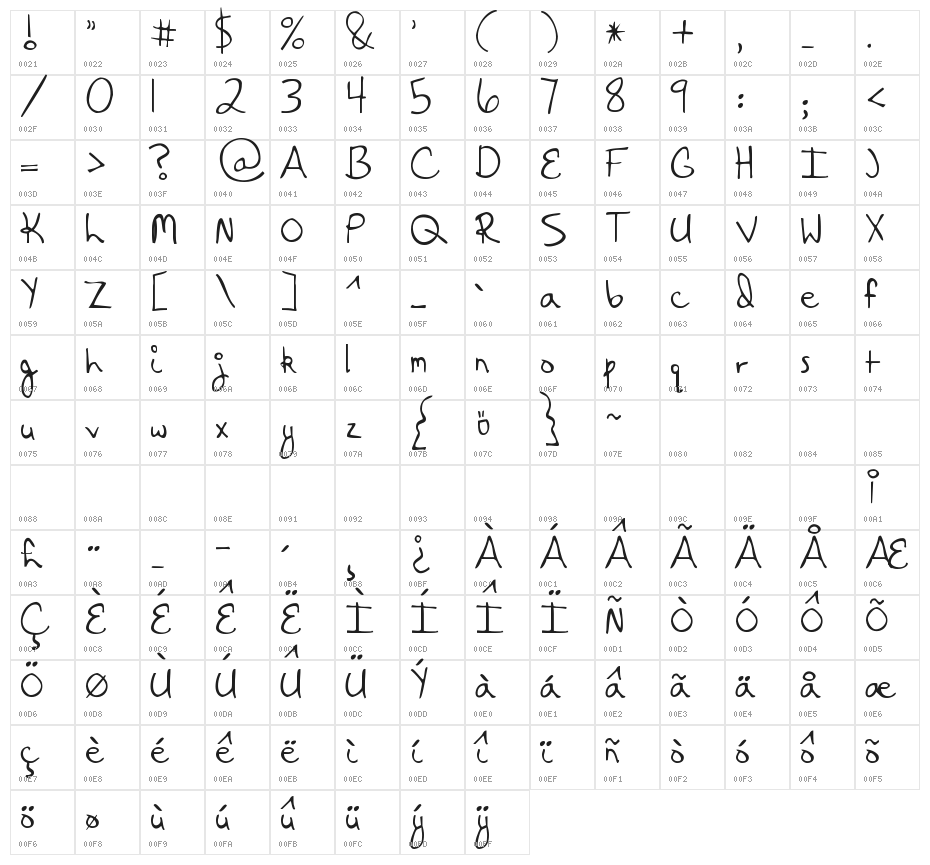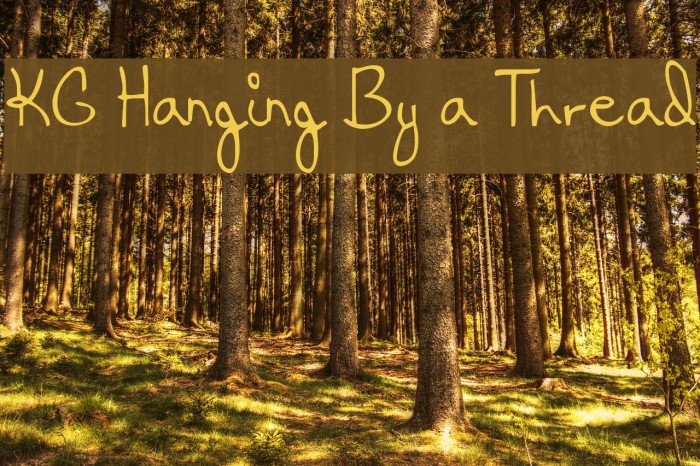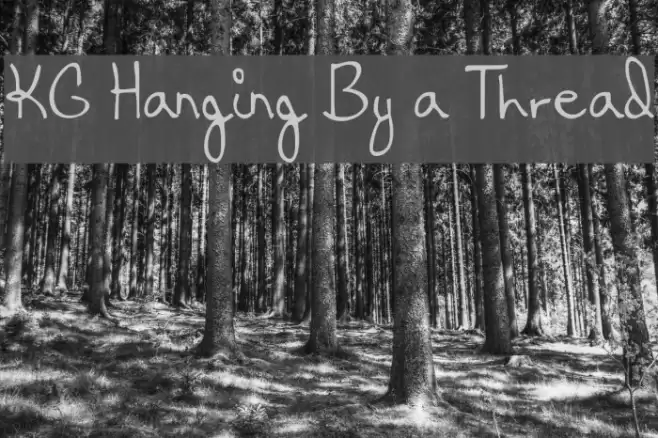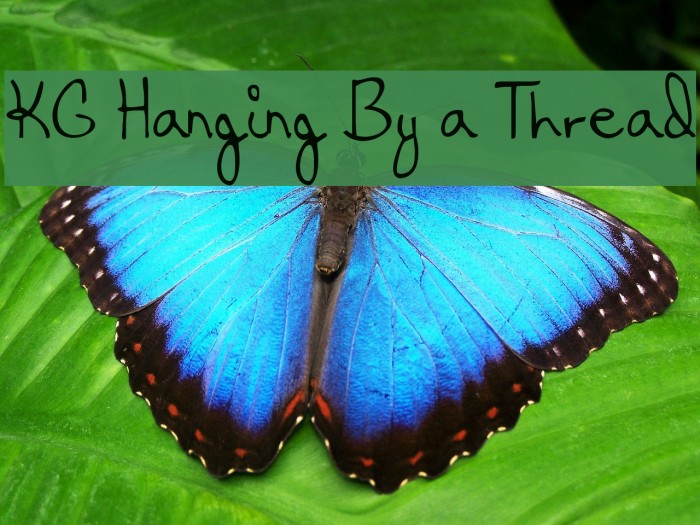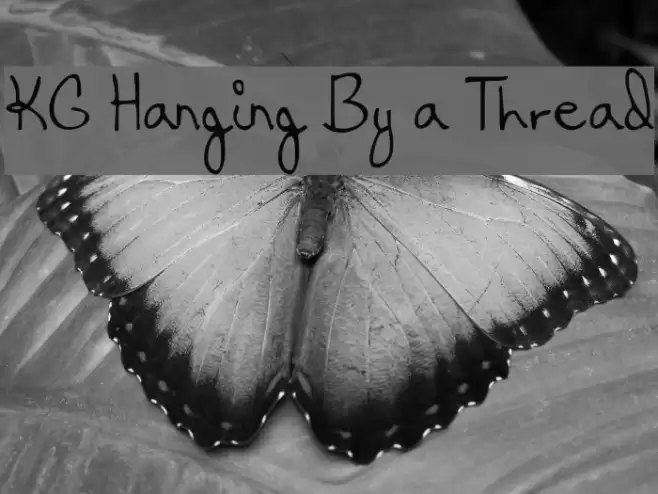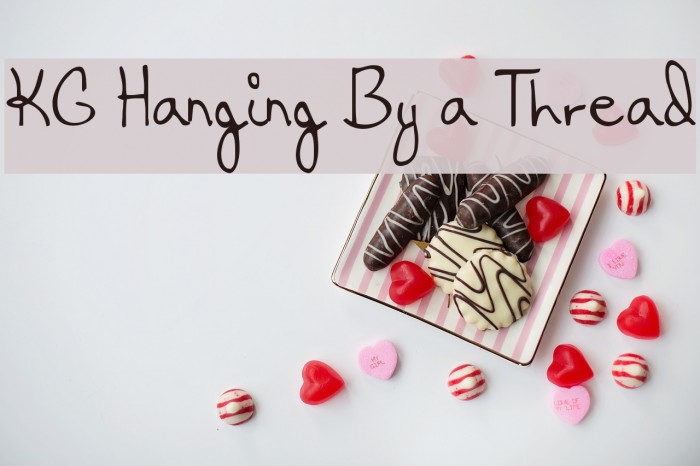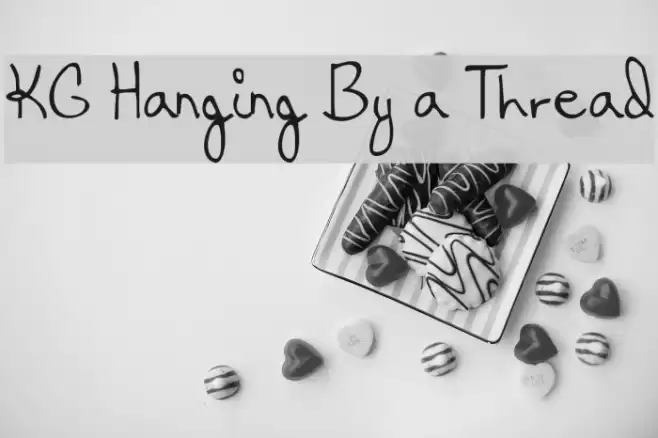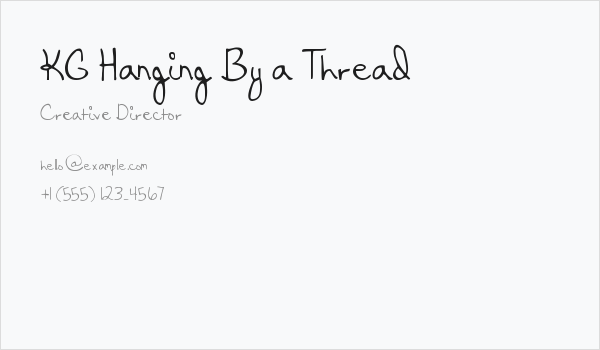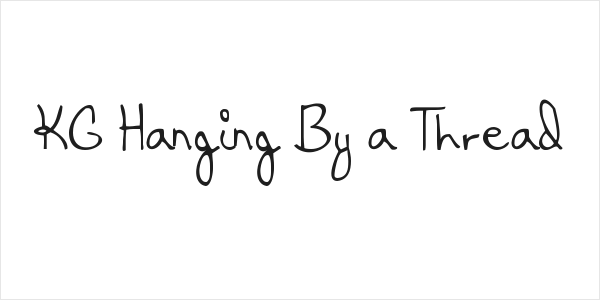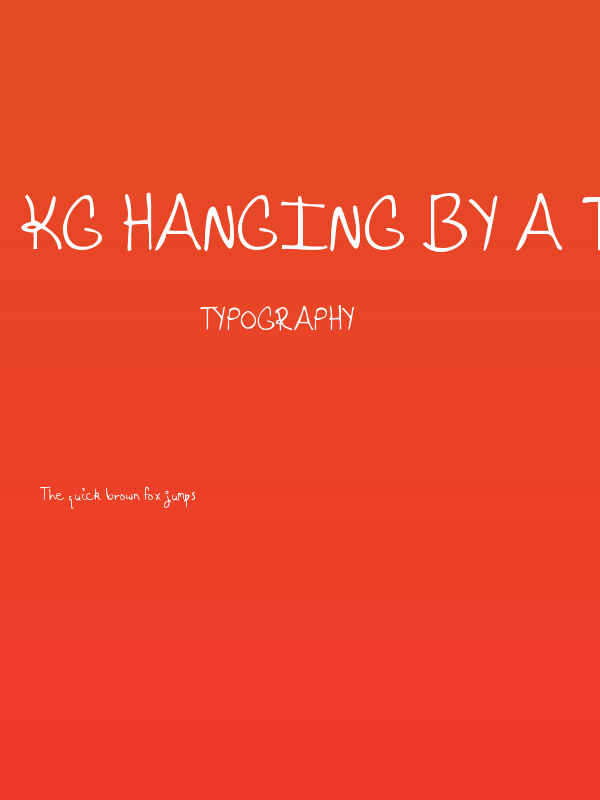
KG Hanging By a Thread Font
KG Hanging By a Thread Description
This playful and whimsical font features a handwritten style with a casual and relaxed appearance. The characters are slightly uneven, giving it a charming, organic feel. The strokes are smooth and rounded, with a consistent thickness that adds to its approachable nature. The uppercase letters are bold and prominent, while the lowercase letters maintain a friendly and informal look. Numbers and special characters are designed to match the overall style, making this font versatile for various creative projects.
| Proposed Projects | Ideal for greeting cards, children's books, playful branding, and social media graphics. |